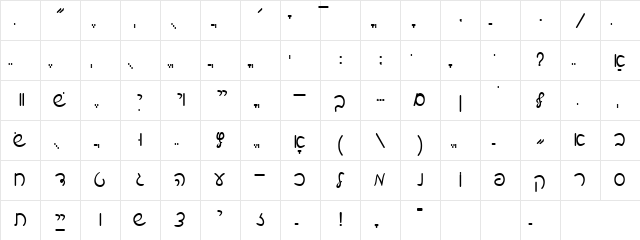
ShalomScript Regular Free Font
ShalomScript Regular
Design Context for ShalomScript
ShalomScript flows with the natural rhythm of handwritten lettering, making it ideal for designs that call for warmth and personal expression.
Font Pairing: Combine ShalomScript with a simple geometric sans for maximum contrast - the tension between flowing curves and clean structure is a classic typographic pairing.
Pro Tip: Use ShalomScript for short runs of text - names, titles, or taglines. Extended body copy in script faces tires the eye quickly.